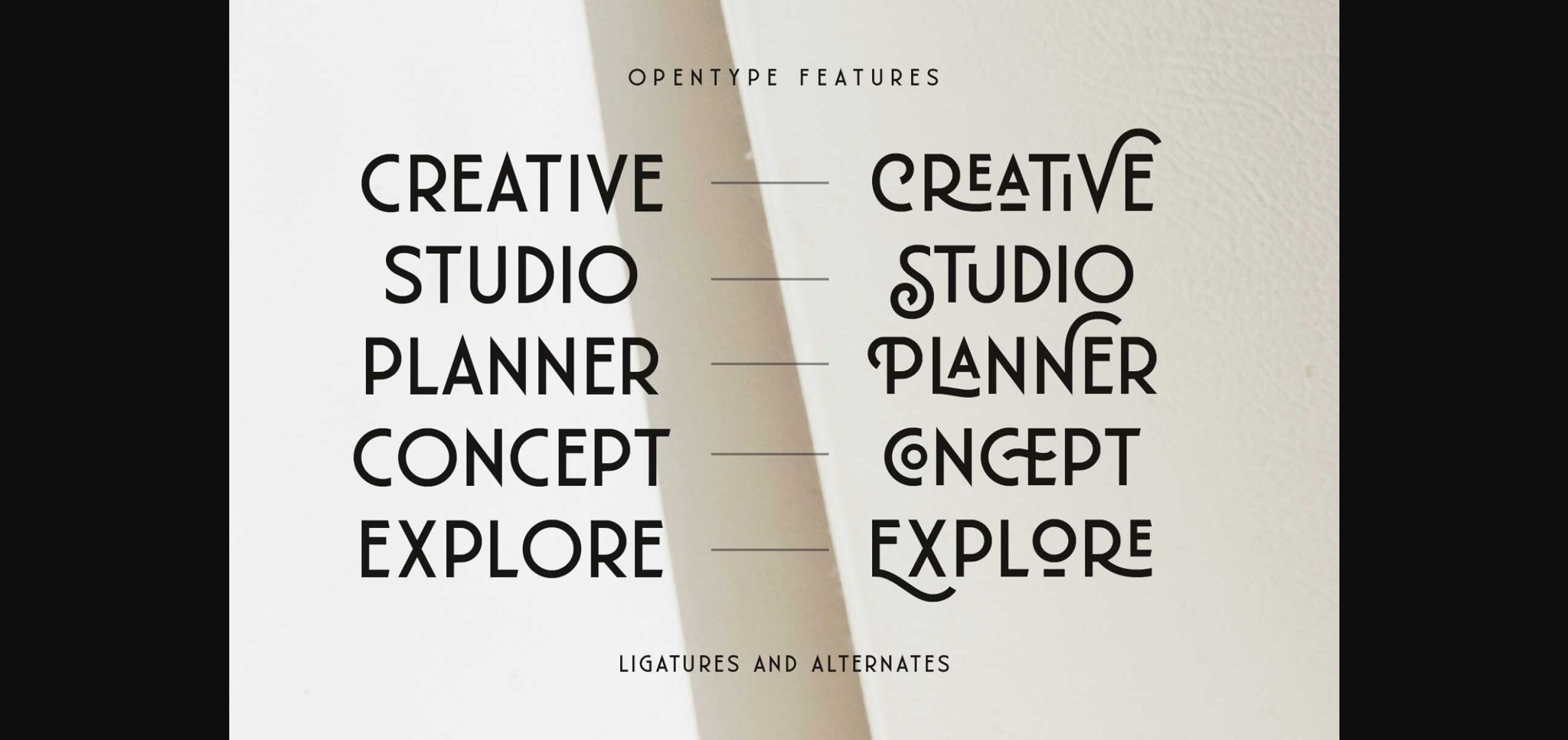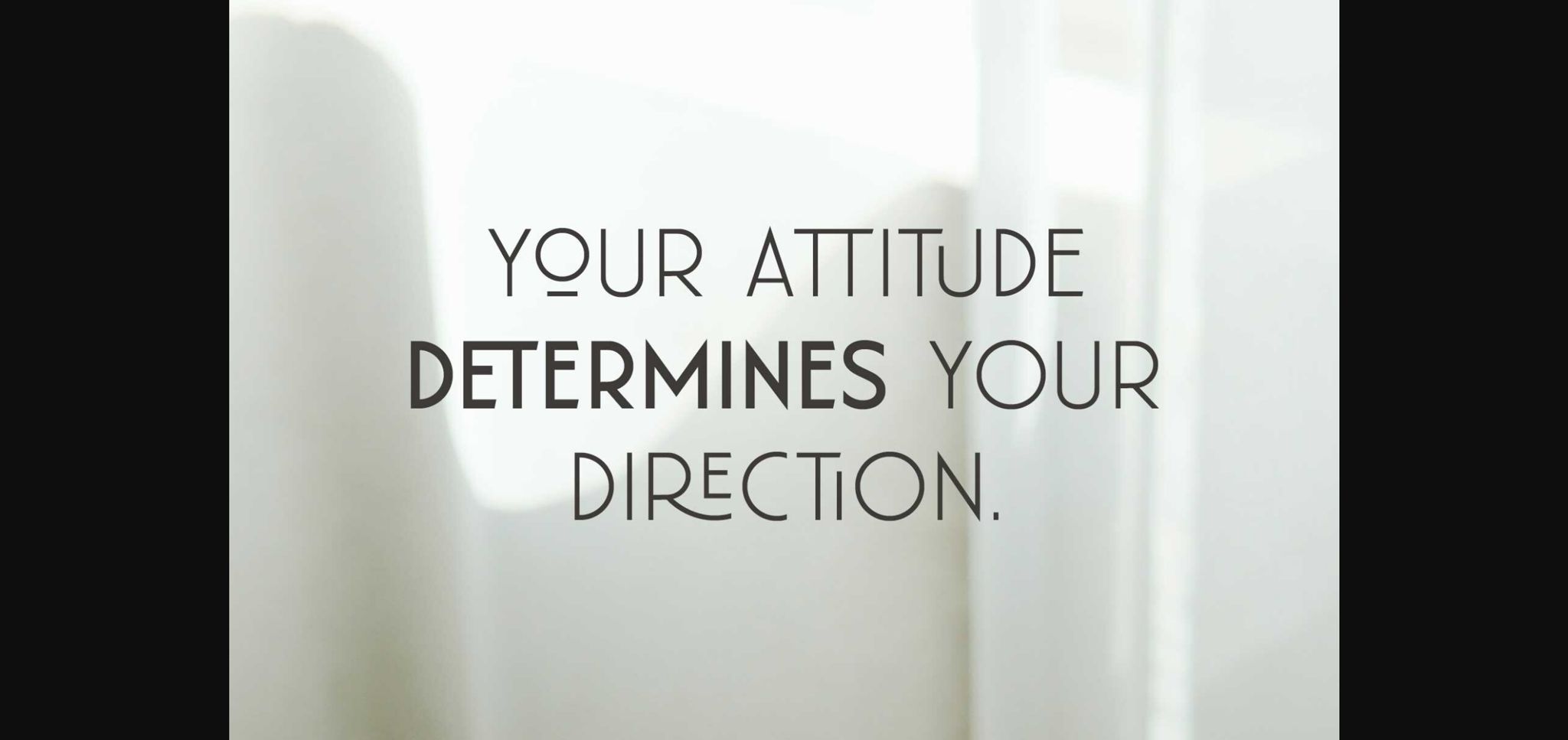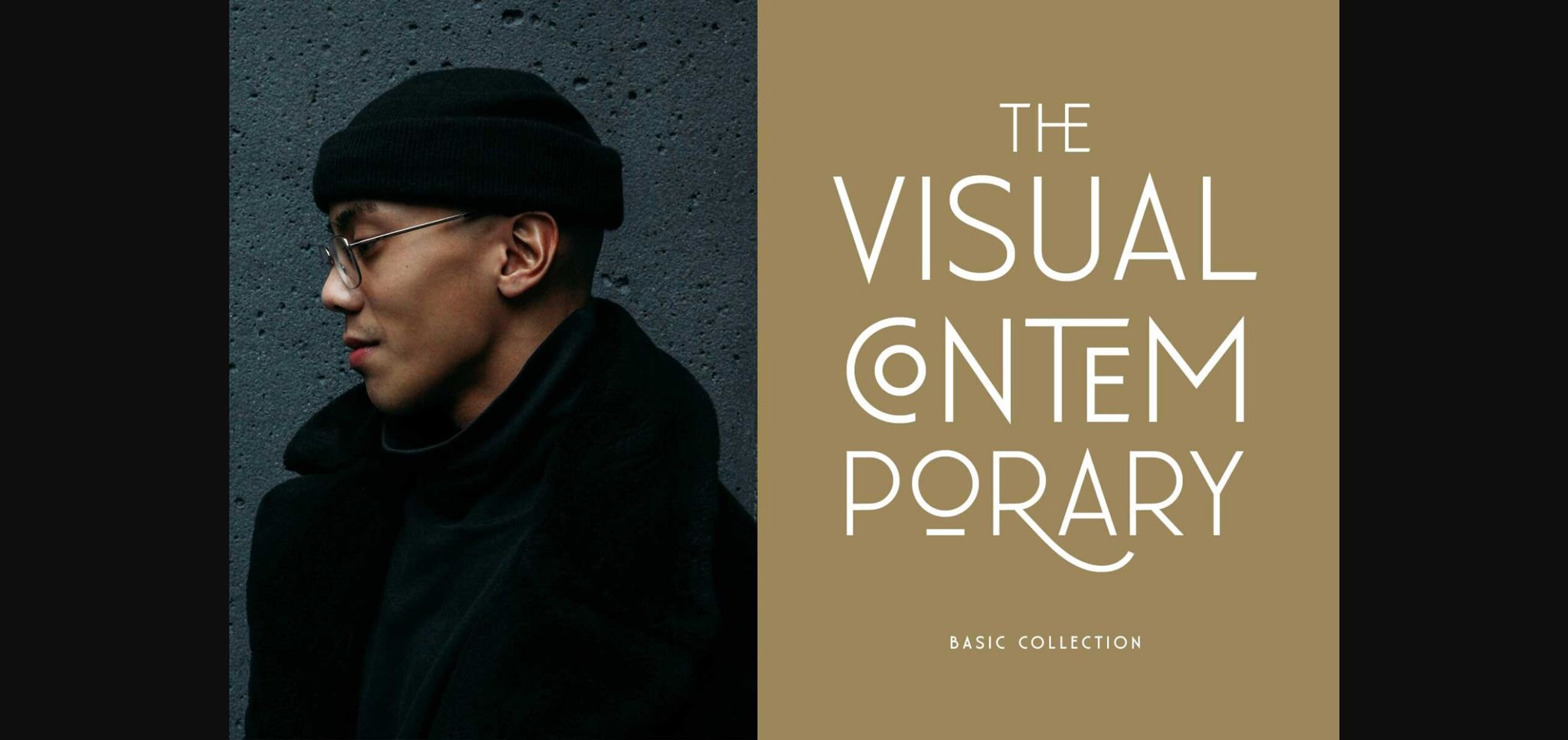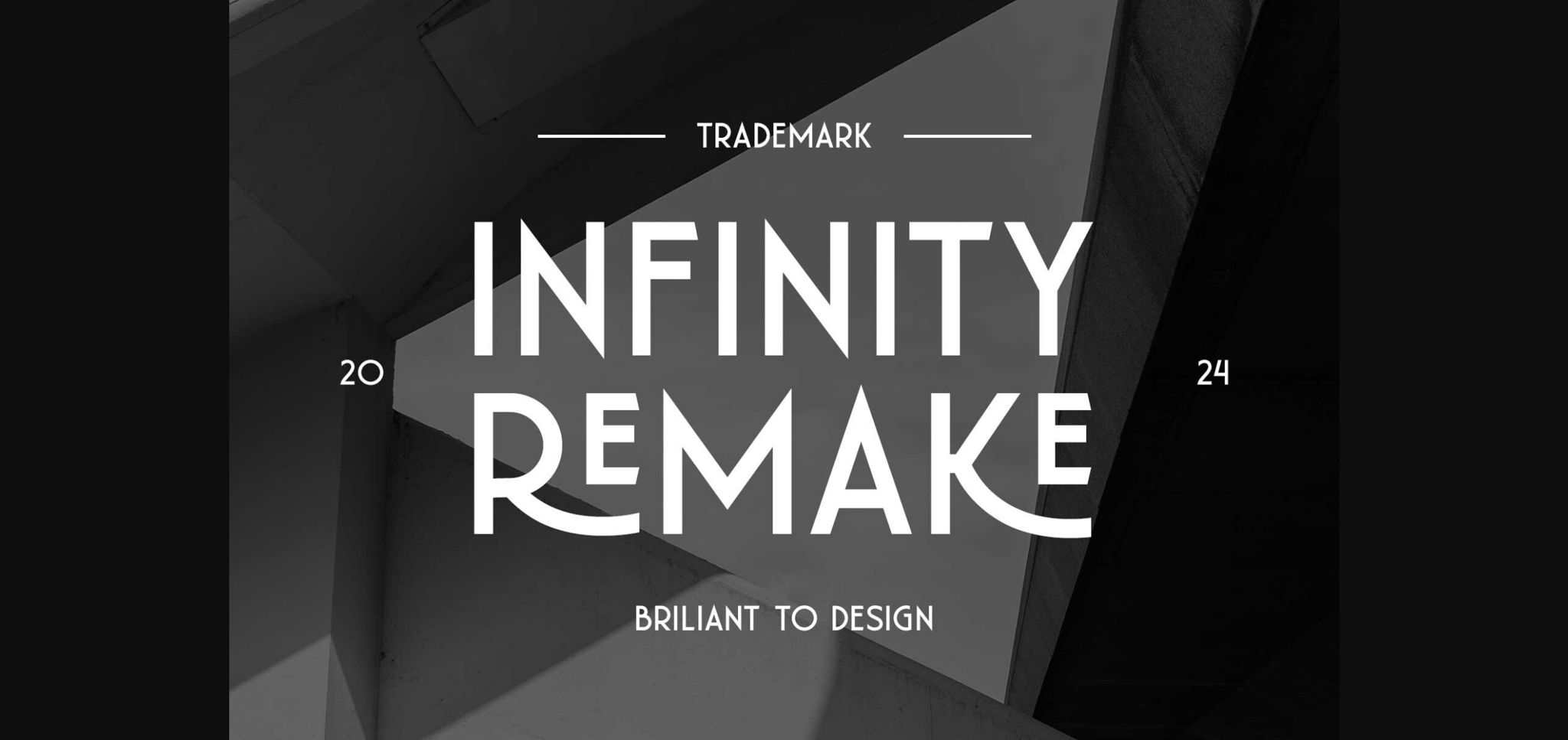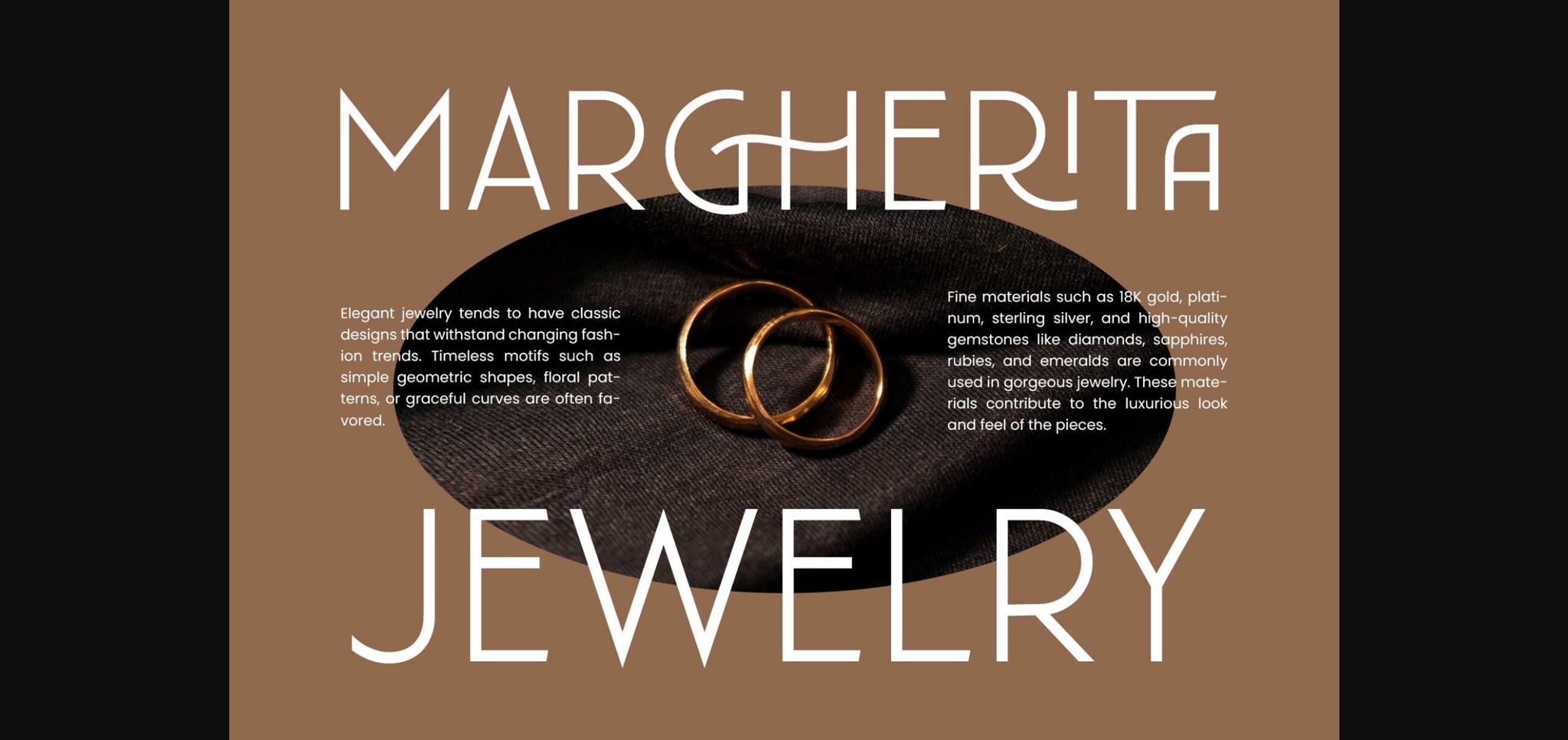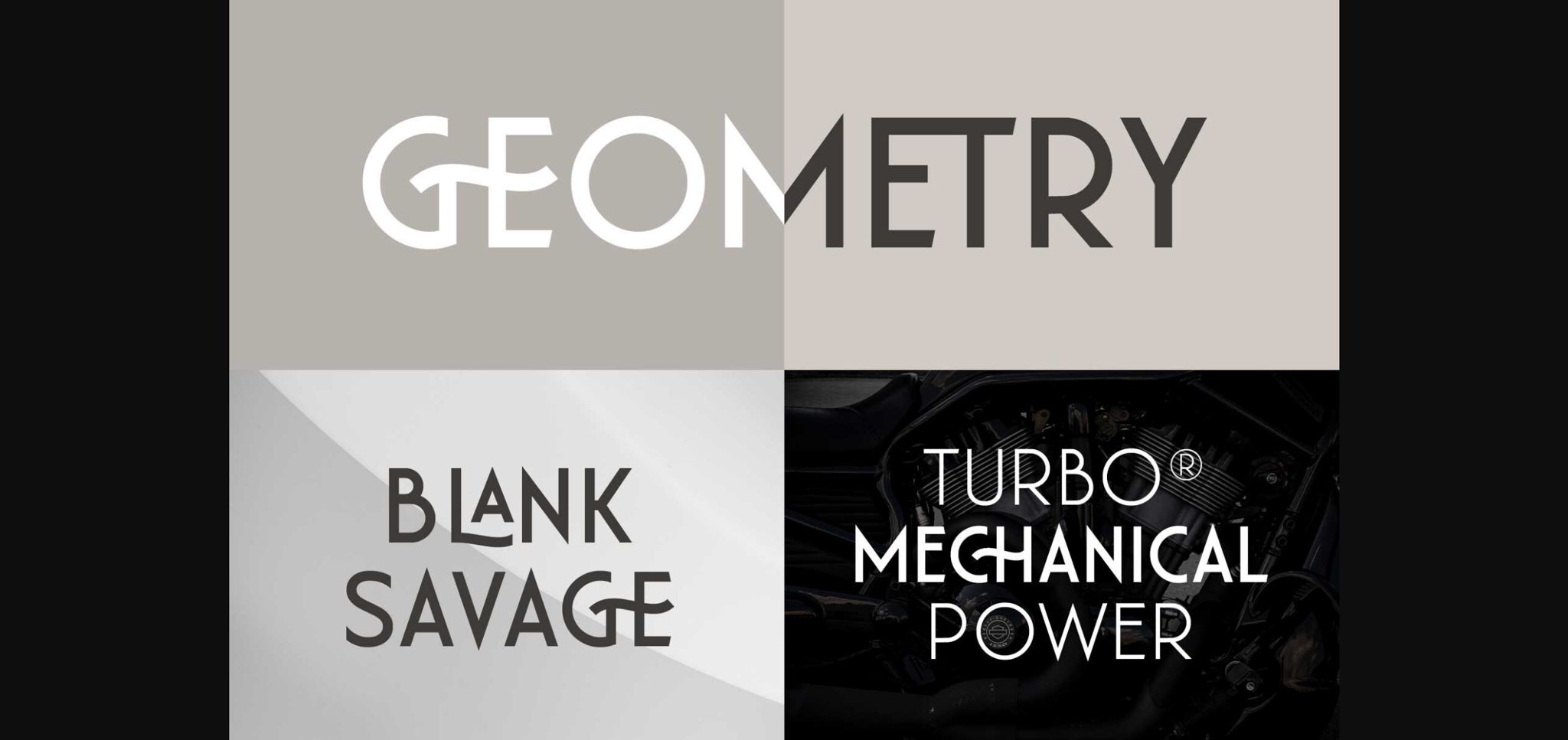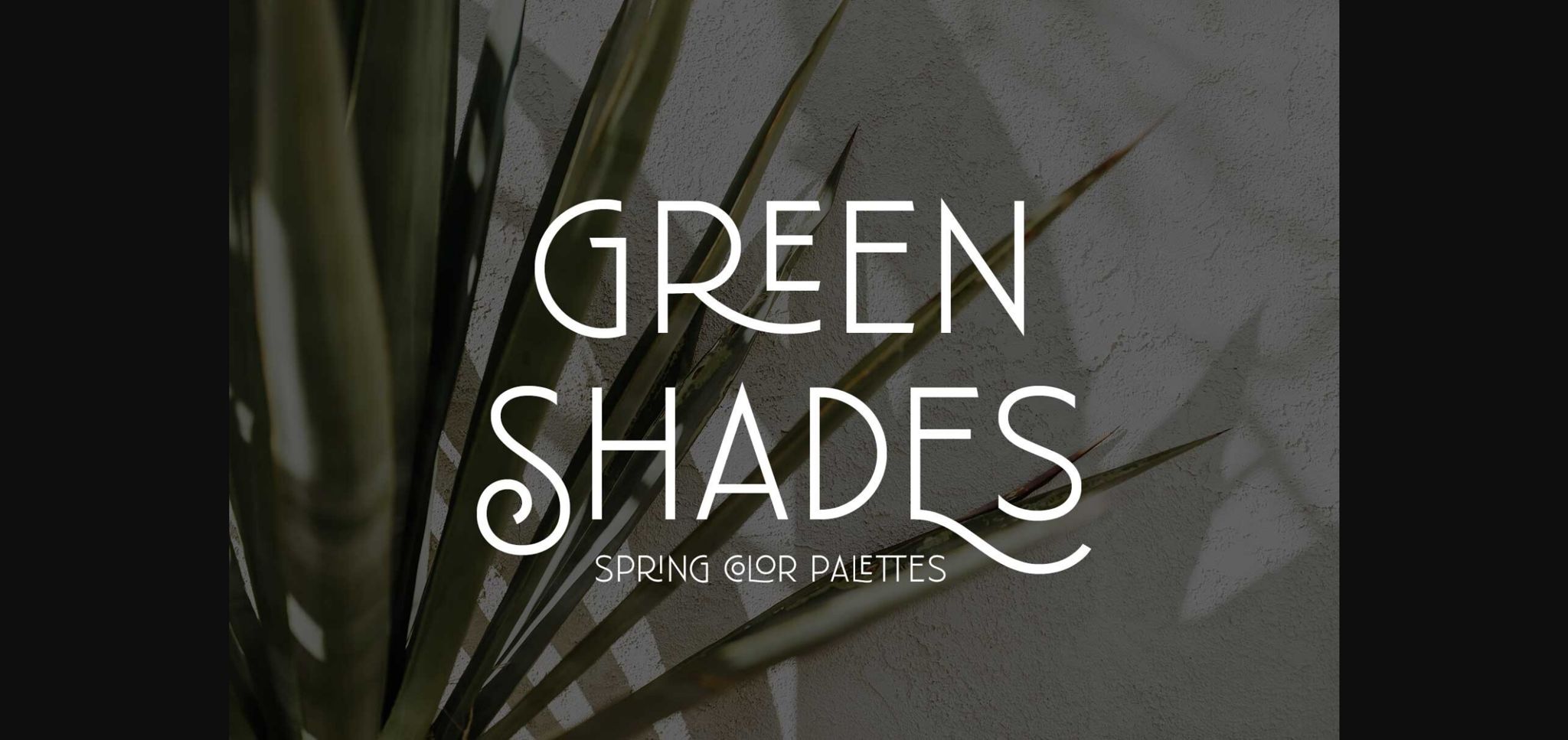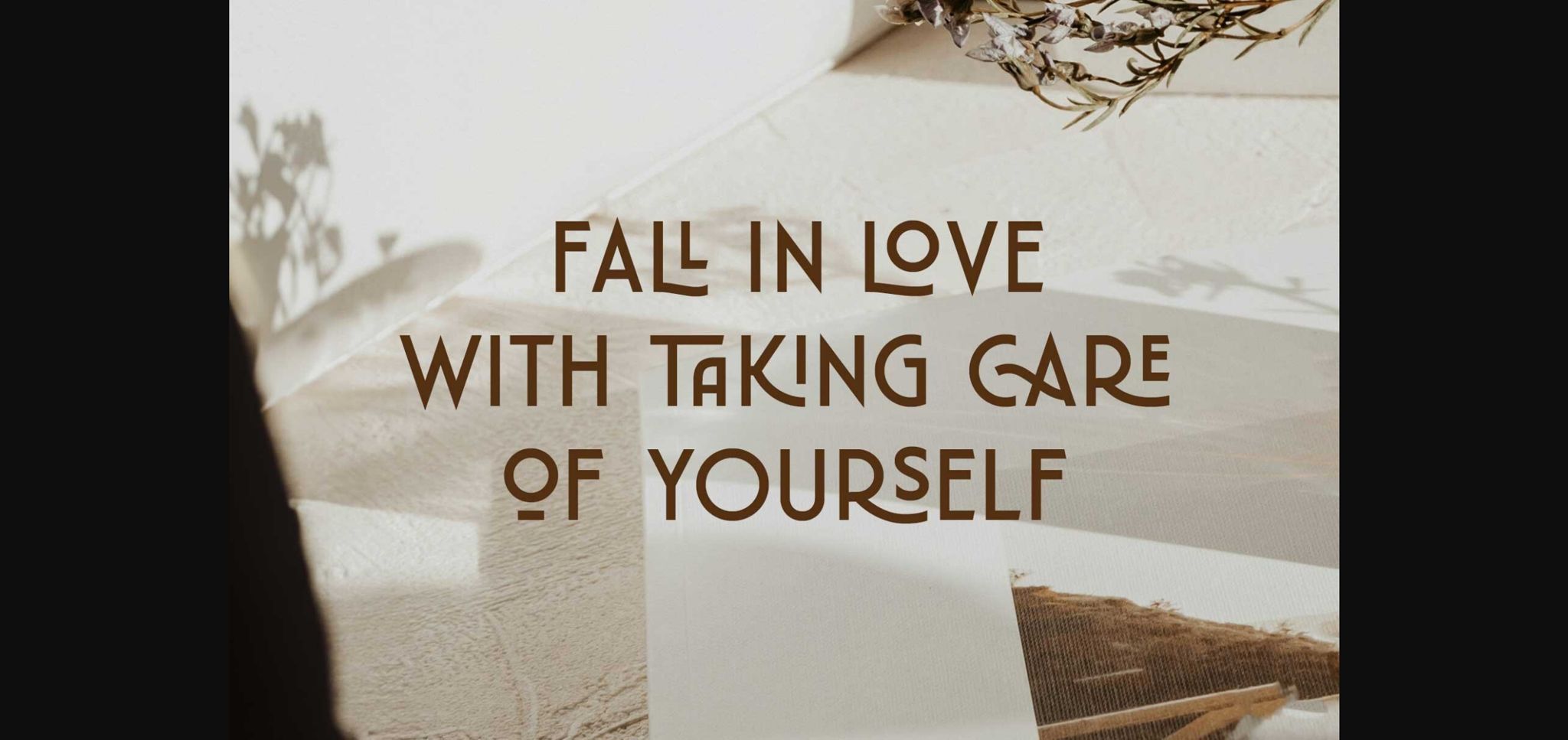
About Florisha Font
Elevate your day with Florisha, a playful yet elegant sans-serif font featuring unique letterforms and special characters. With its uniform lowercase and uppercase heights, Florisha exudes an elegant and minimalist vibe. Crafted from geometric shapes and spacious spacing, it offers clarity in design.
Florisha comes in three weights: light, regular, and bold, allowing for versatile use either as a set or individually. Ideal for various purposes including logos, fashion, branding, editorial, quotes, menus, magazines, brochures, and more.